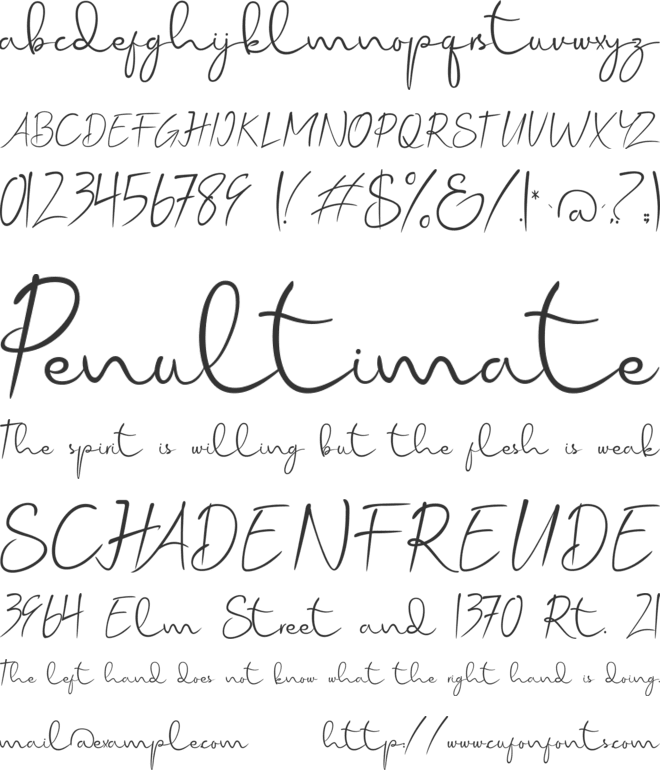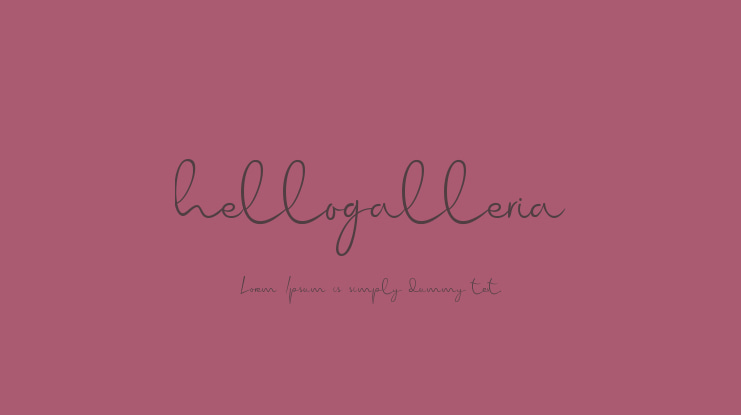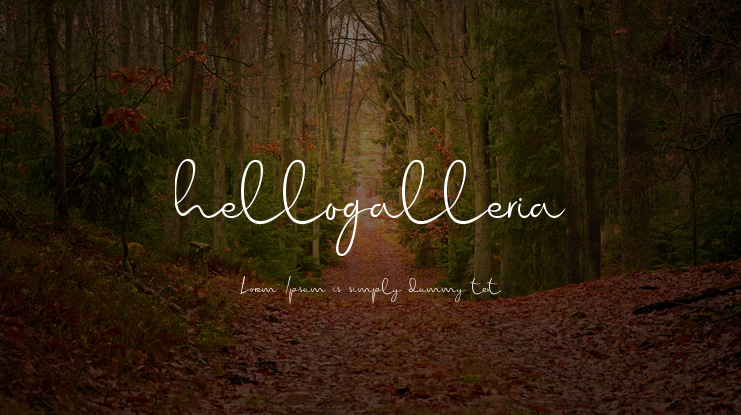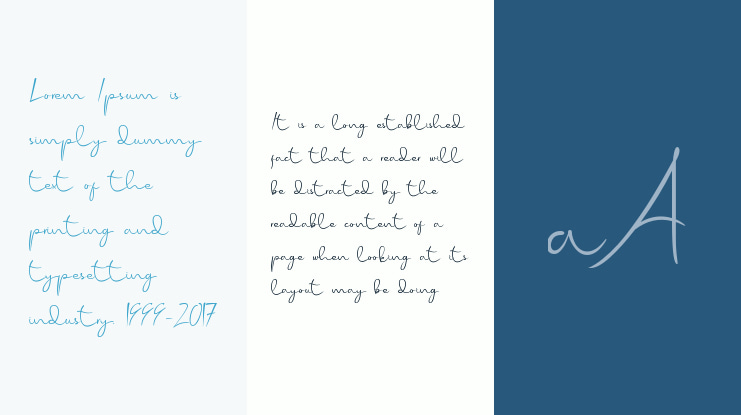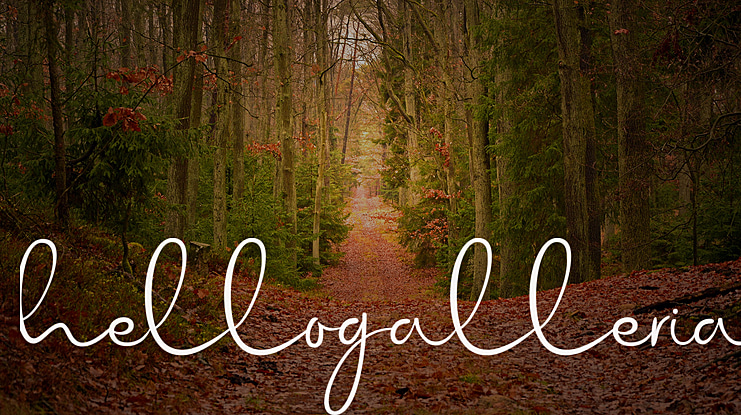
Hello Galleria Sans & Script Font Duo is usually used for wedding events to be placed
on invitation cards or social media broadcast information, Hello Galleria Sans & Script Font Duo